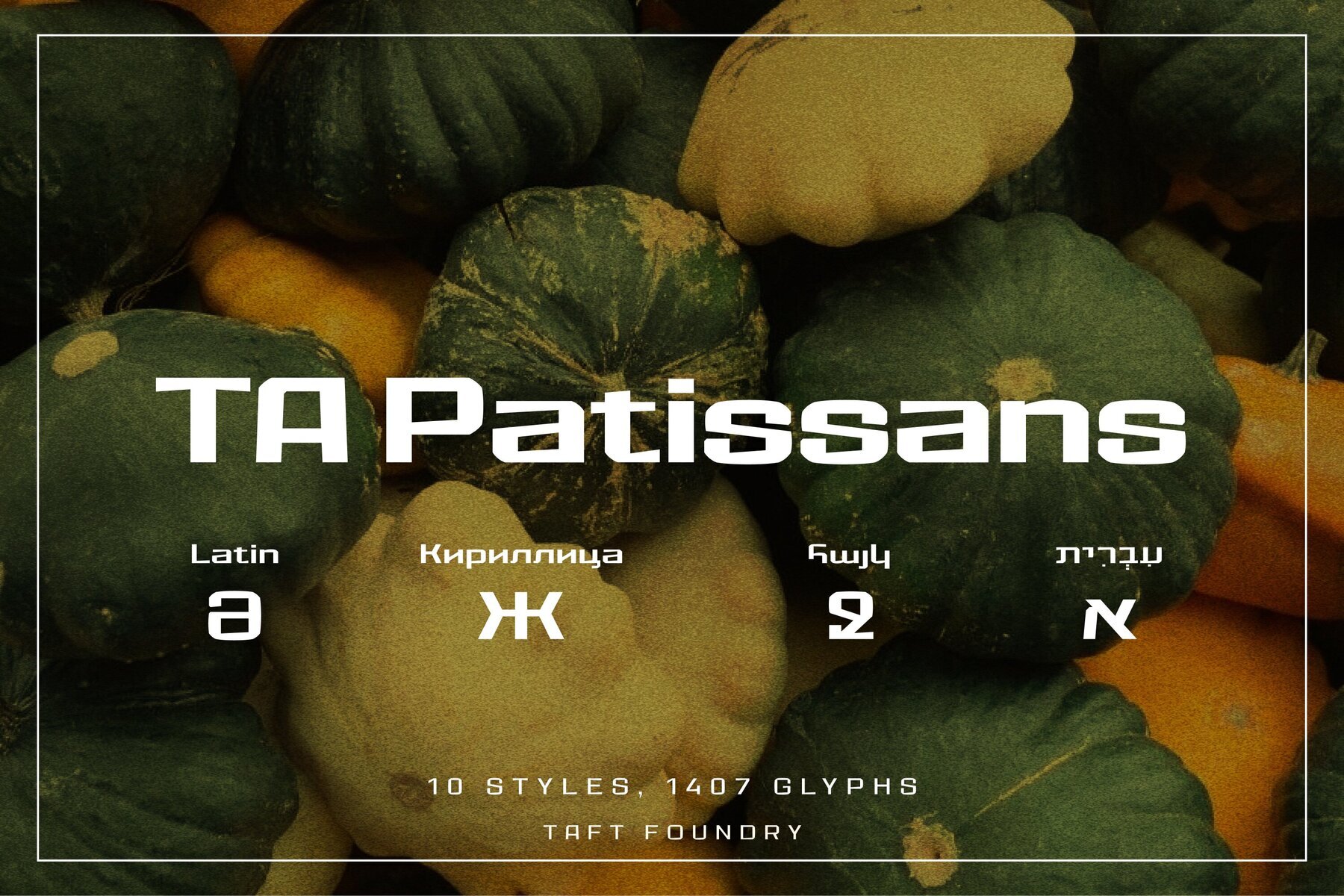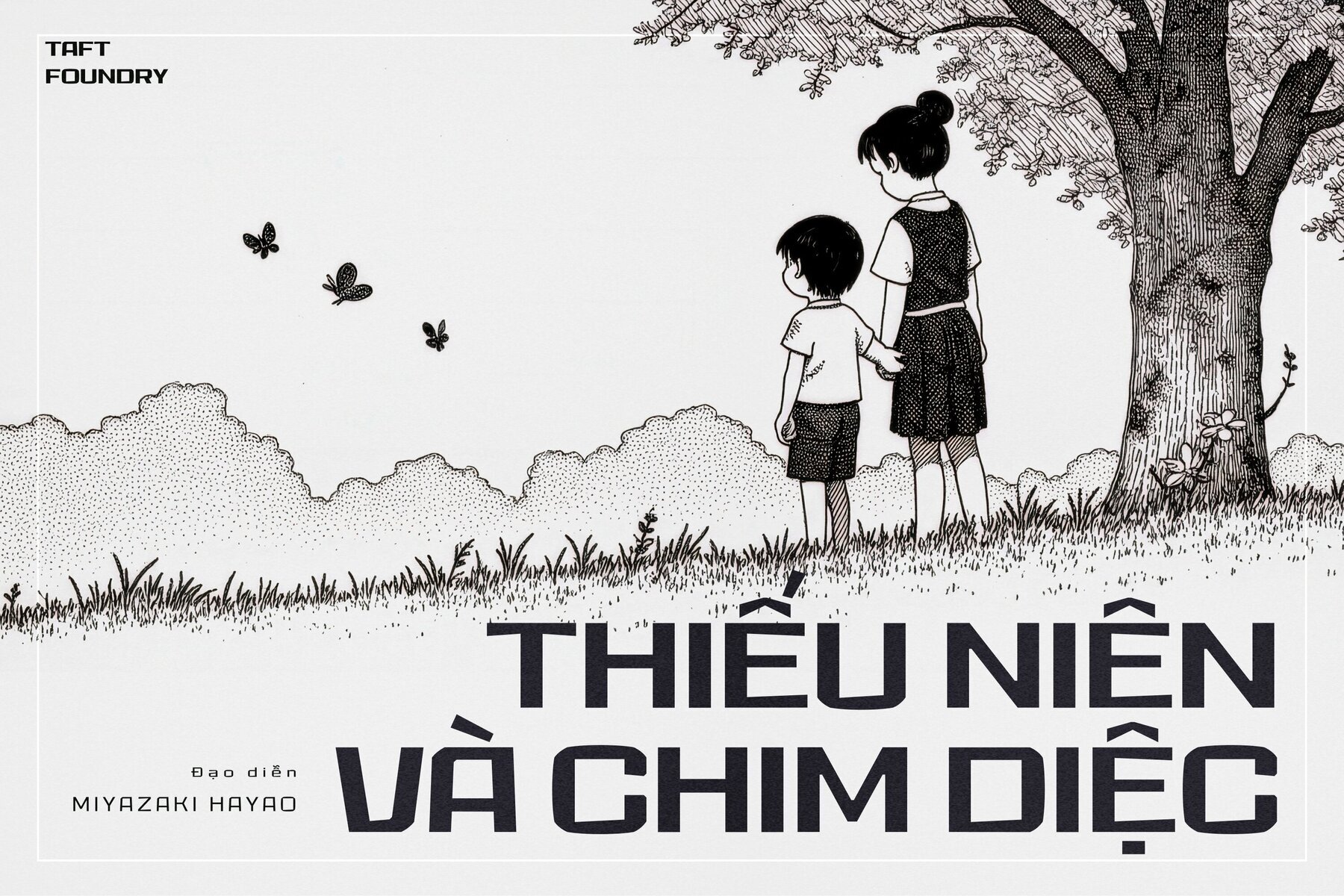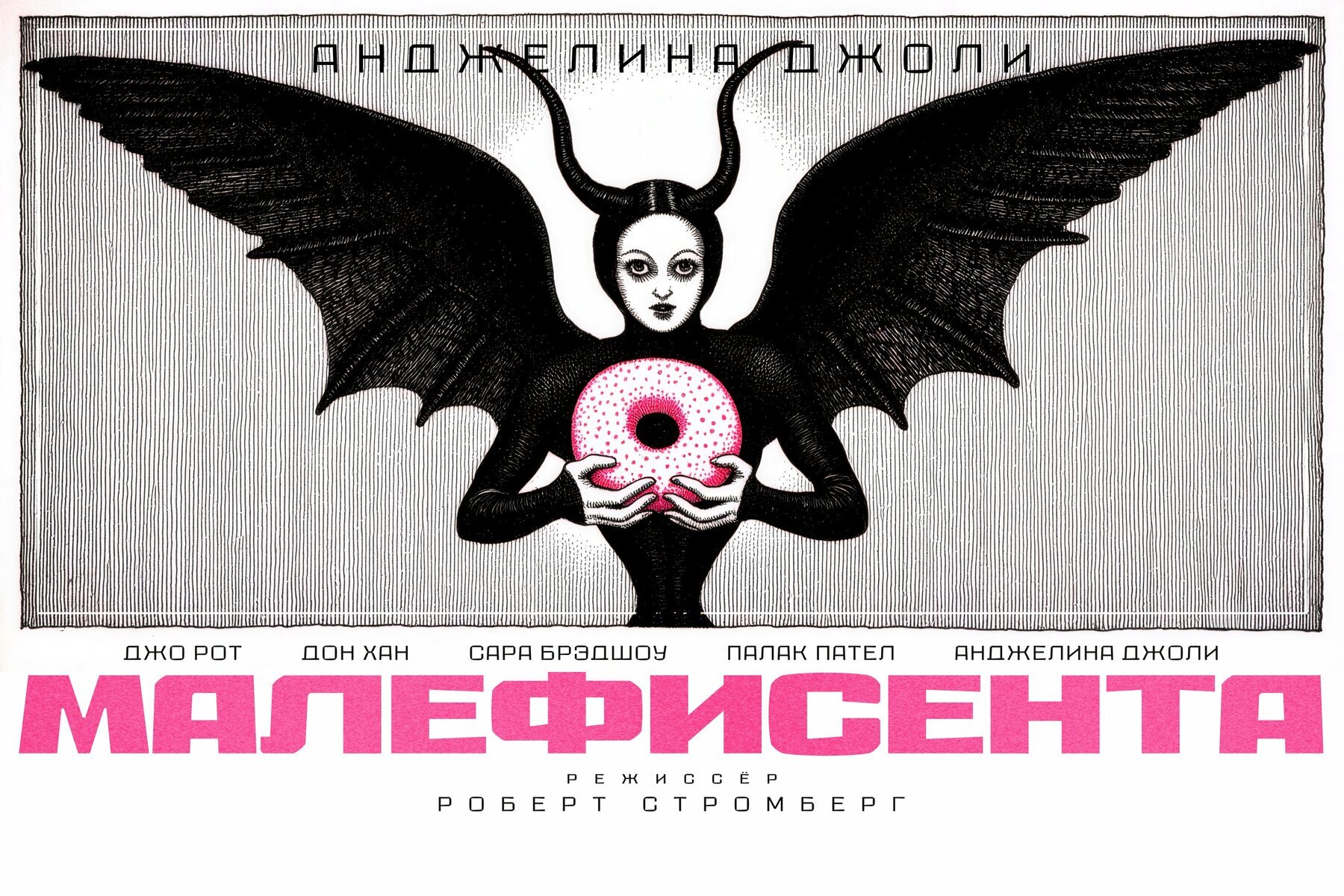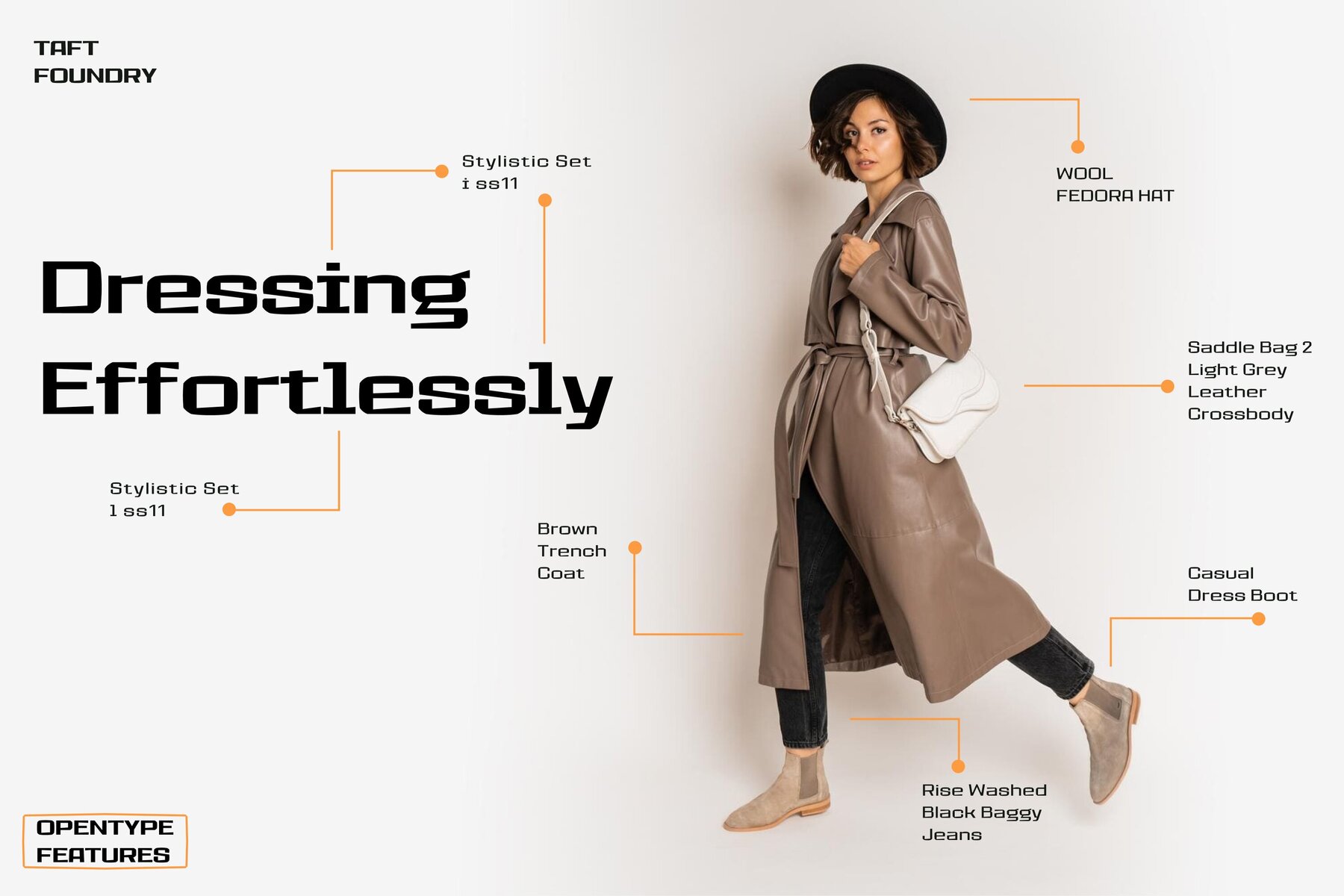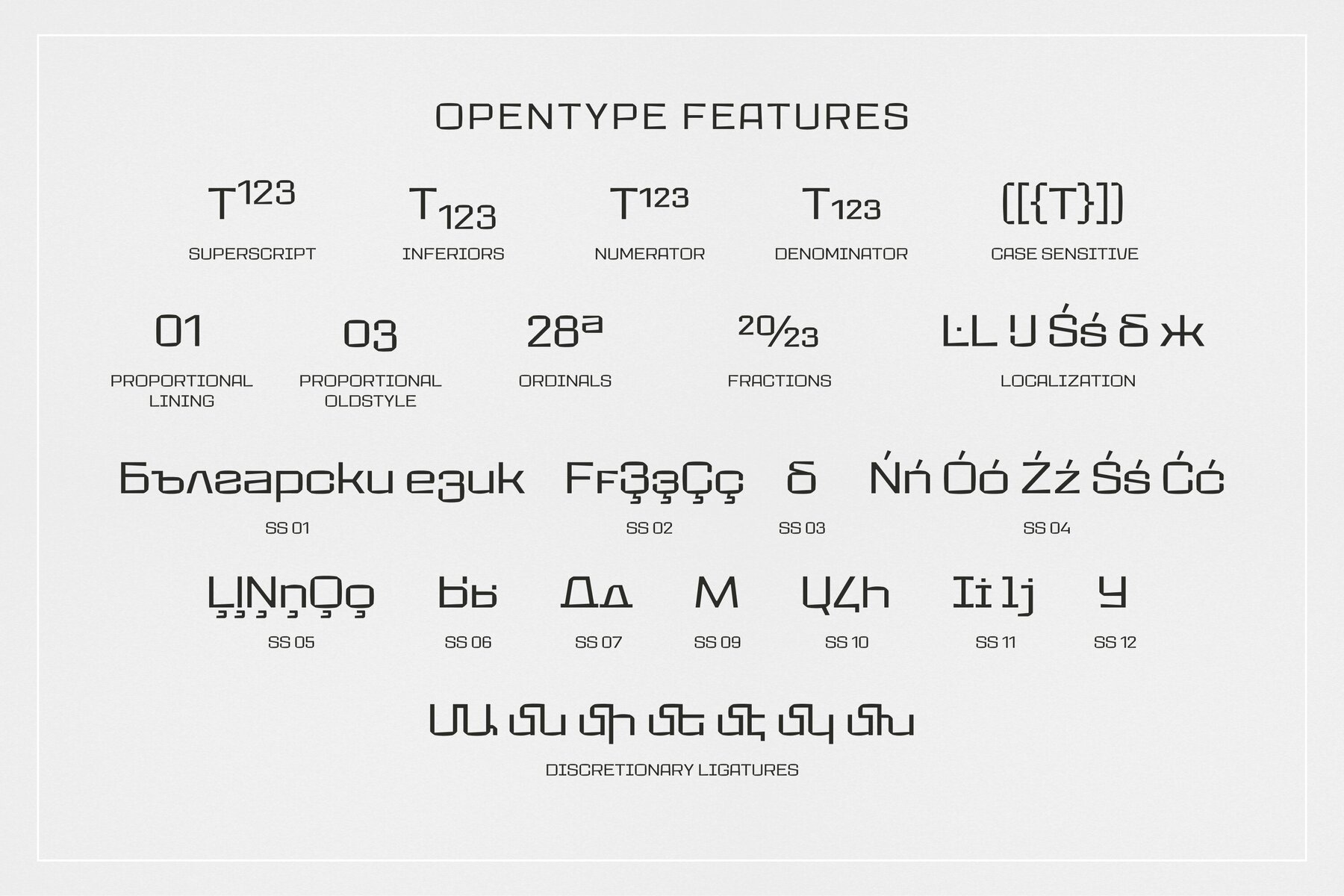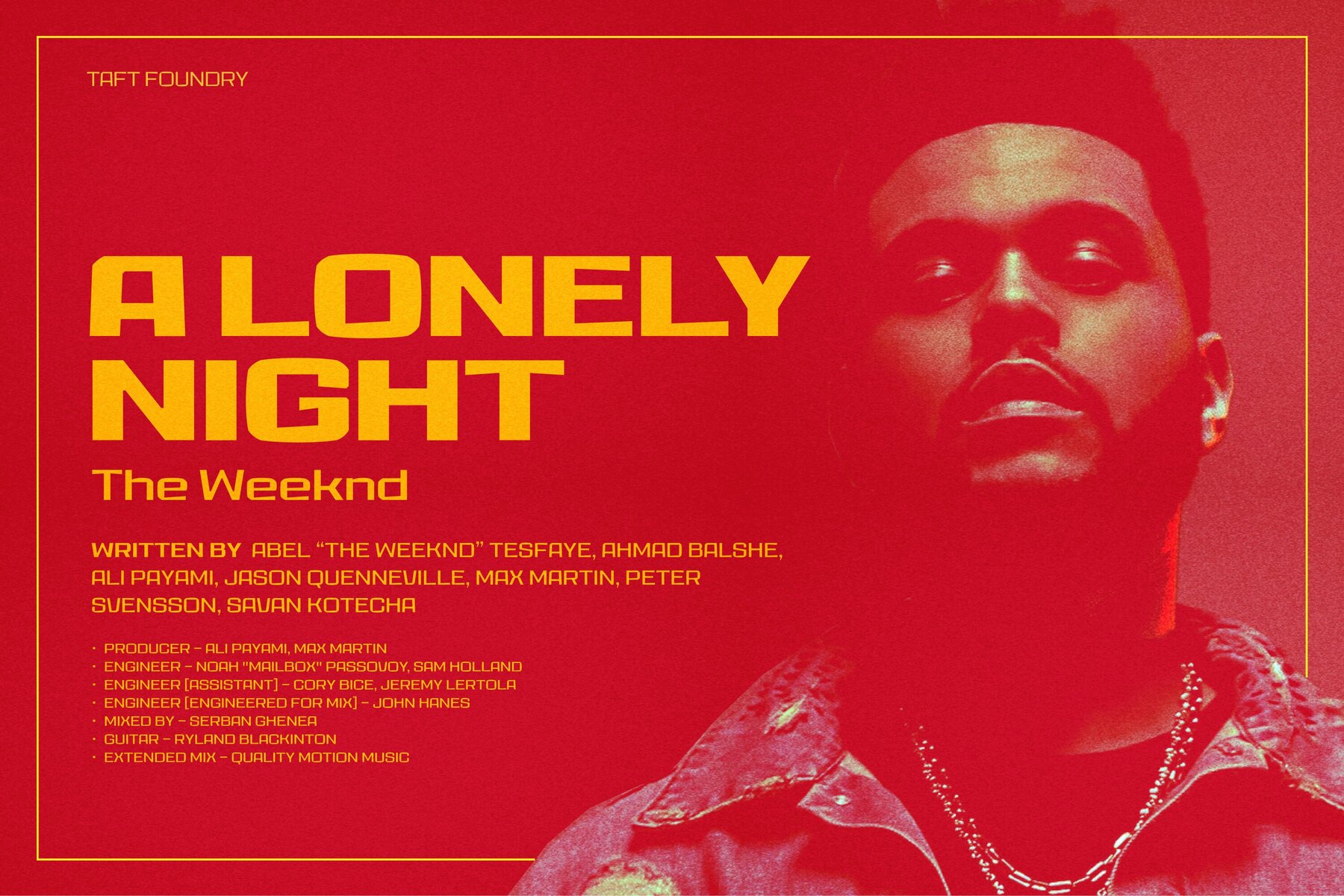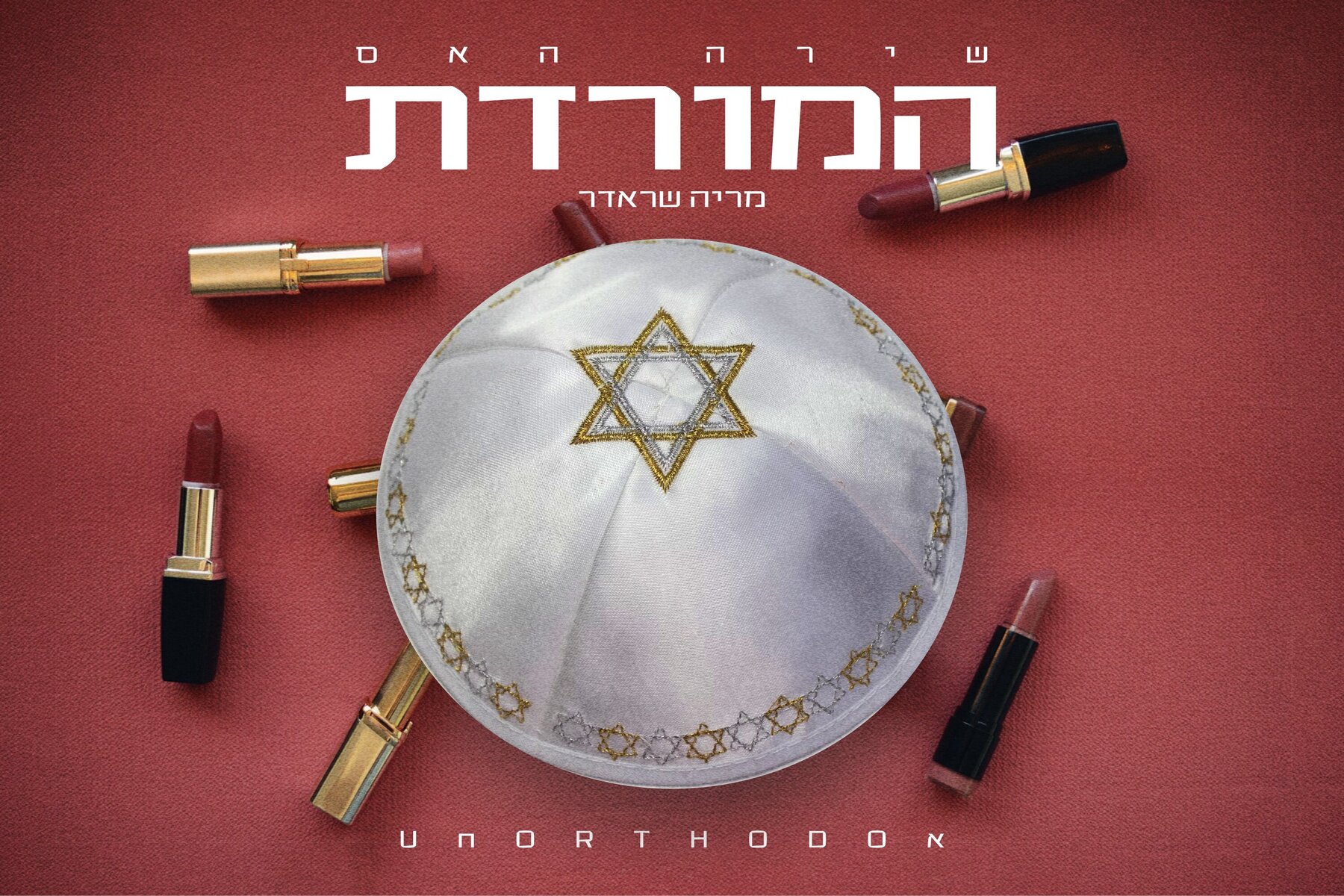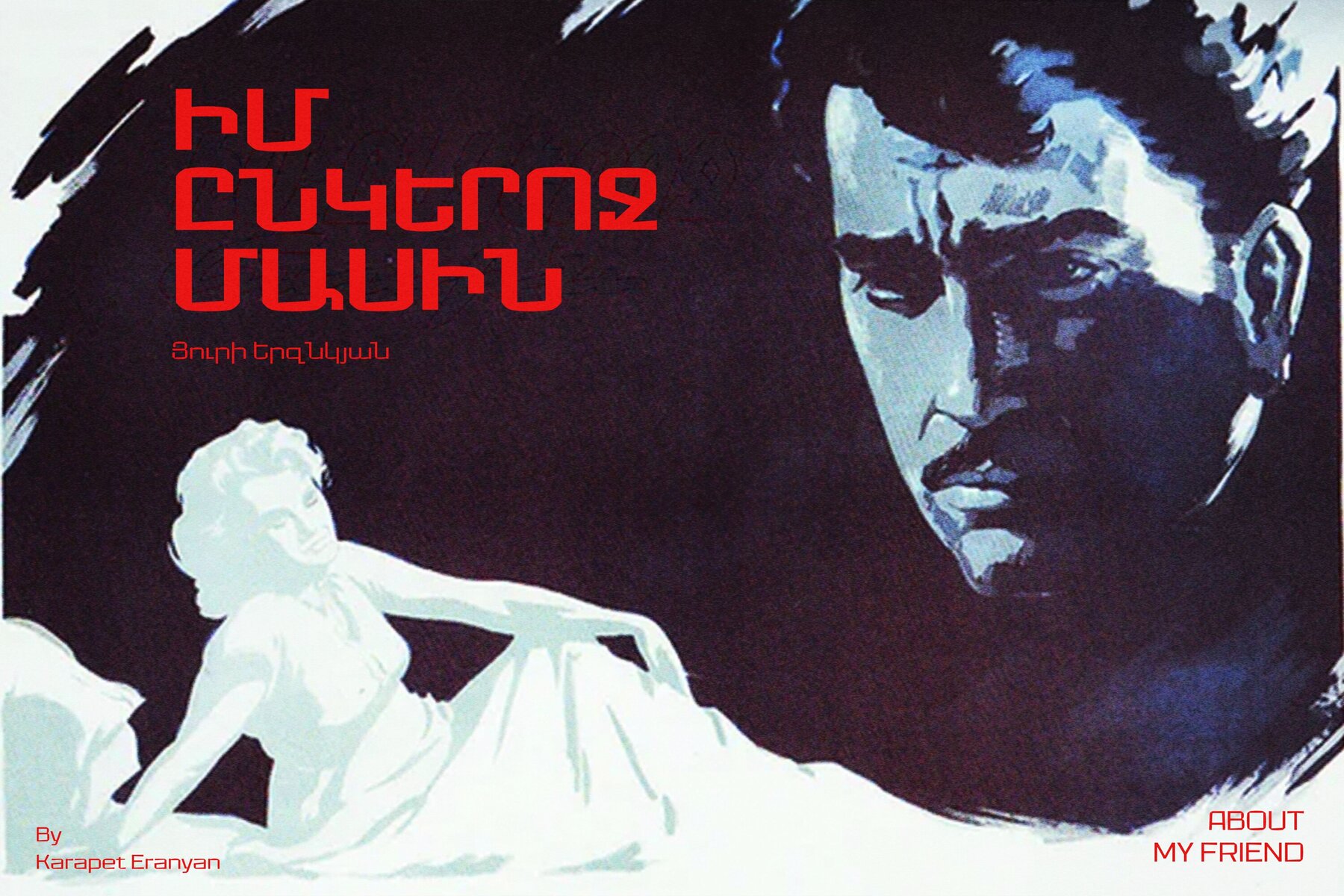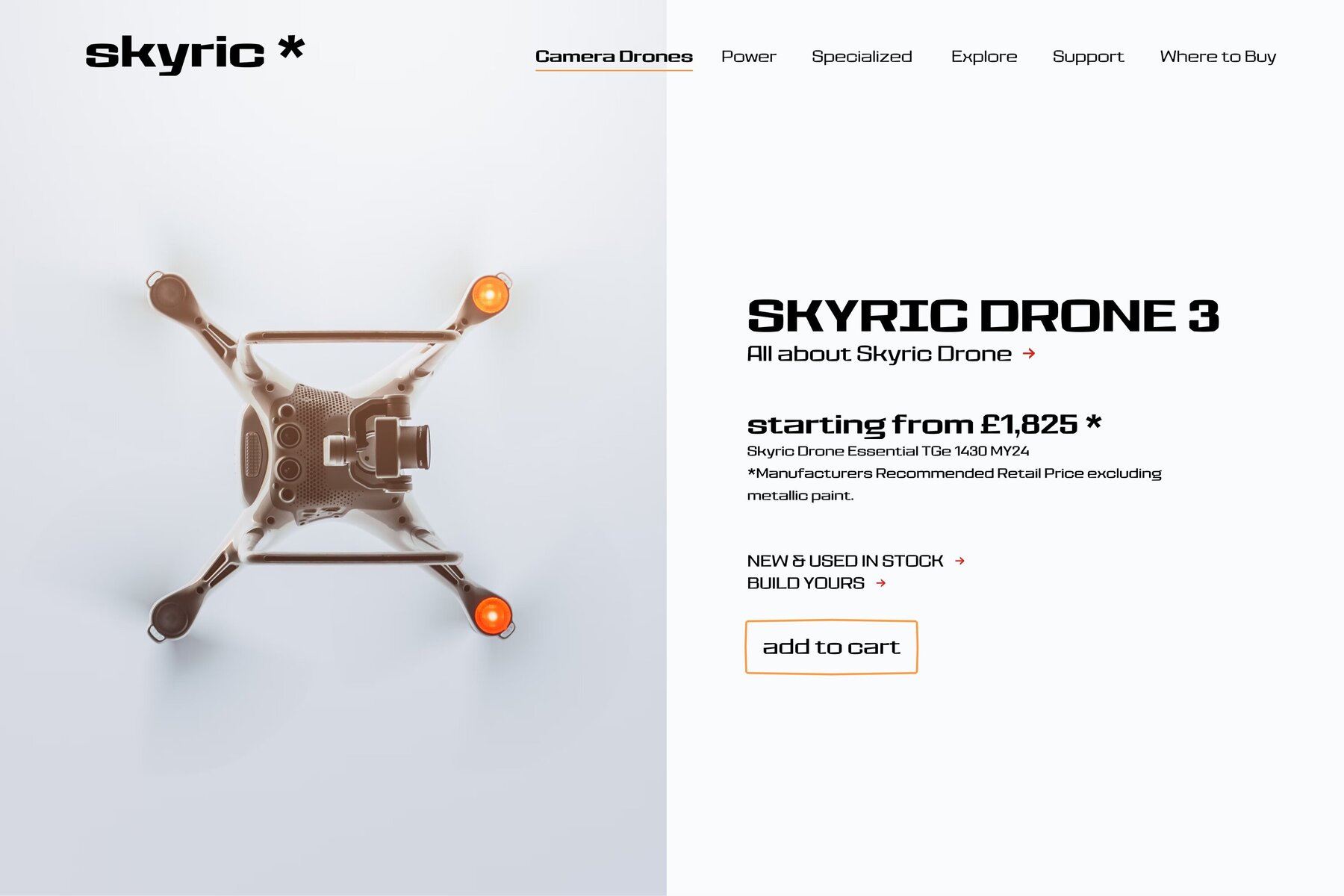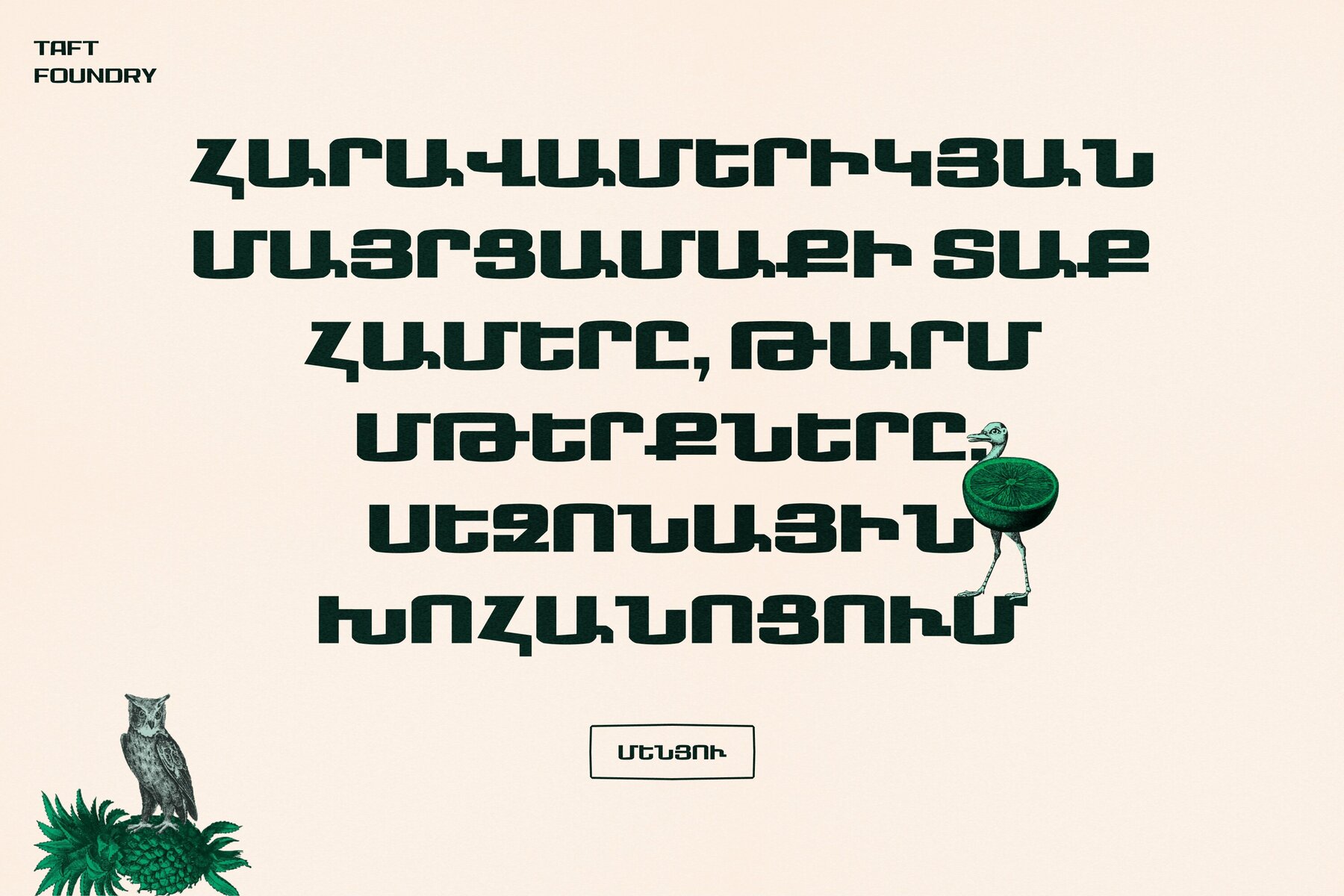
TA Patissans Font
TA Patissans is a strong and versatile sans serif font designed to meet the dynamic demands of modern design. Its futuristic, geometric forms are ideal for a wide range of applications. With 10 distinct weights – from Thin to ExtraBlack – it caters to diverse design needs. Each weight is balanced for both digital and print environments, making it suitable for various projects. Its clean, modern lines and carefully crafted details ensure high legibility and precision in both print and on-screen use. Even at smaller sizes, it retains its readability and fine details, performing brilliantly across mediums. Optimized for mobile applications and digital platforms, TA Patissans is an excellent choice for web design and UX/UI projects. The sleek, futuristic style makes it ideal for headlines, posters, corporate identities, technology, and fashion designs. However, it is also perfect for gaming, startups, tech platforms, and advertising campaigns. TA Patissans is a global font, fully localized for Latin, Cyrillic, Armenian, and Hebrew scripts, making it perfect for international projects. OpenType Features TA Patissans comes equipped with a broad range of OpenType features to give designers more flexibility. These include Superscript, Inferiors, Numerator, Denominator, Proportional Lining, Proportional Oldstyle, Ordinal Numbers, and Fractions. With alternative styles available through stylistic sets and discretionary ligatures, it allows for more creative typographic arrangements. Localization and Language Support TA Patissans is an excellent choice for international projects, as it supports full localization for Latin 99%, Cyrillic 80%, Armenian, and Hebrew languages. This makes it a valuable tool for designers aiming to adapt their projects globally and reach a wide audience. Language support Script: Latin Cyrillic Armenian Hebrew